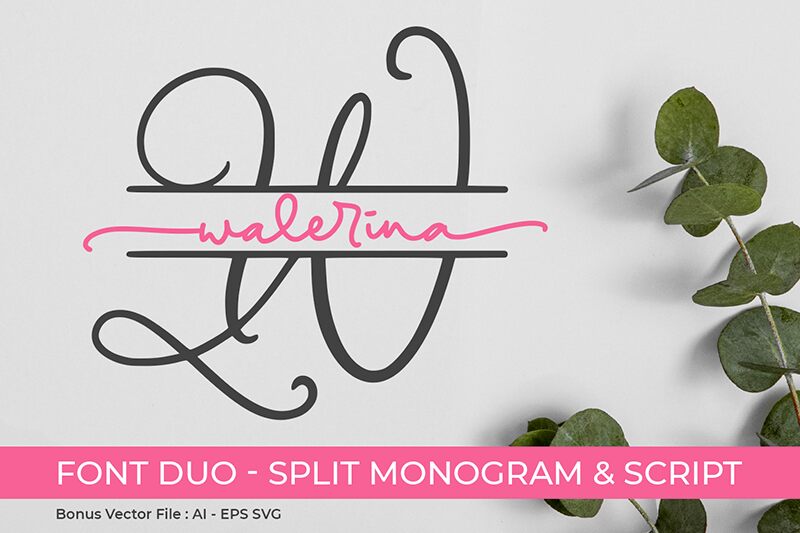
Walerina Script
Walerina Script is a signature handwritten font designed by Panggah Laksono at Abo Daniel Studio. Perfect for adding an elegant, personal touch to your projects, this light font will make any design stand out. Ideal for wedding invitations, greeting cards and logos.
WALERINA
- monogram & script -